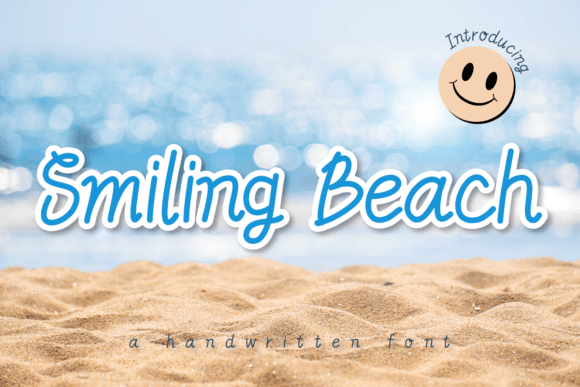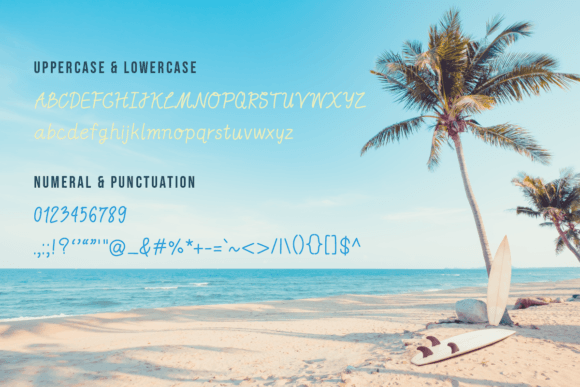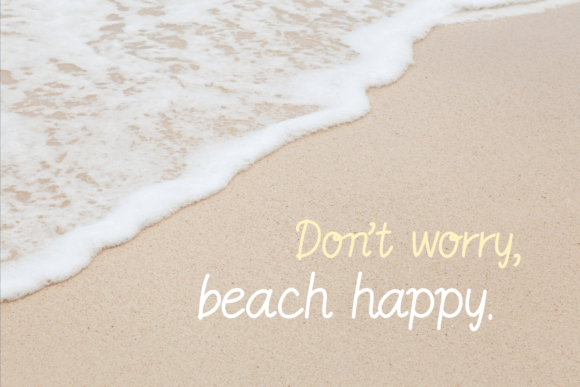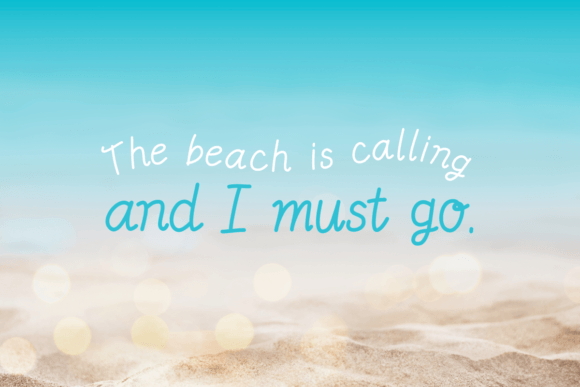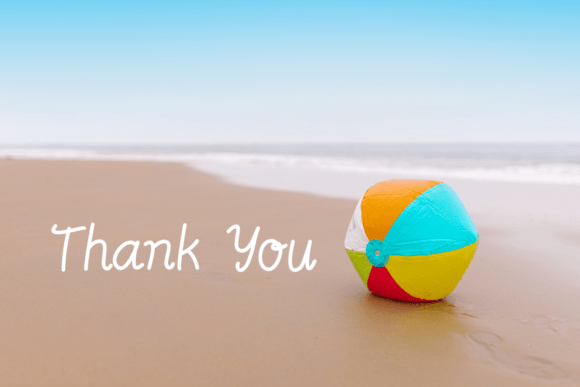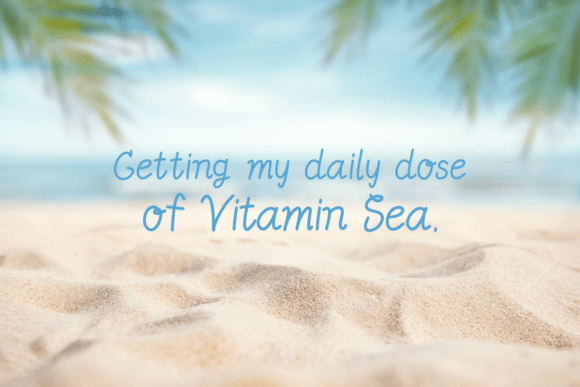
Smiling Beach Font
About Smiling Beach Font
“Smiling Beach” is a handwritten font that radiates positivity and character. This friendly and charming hand-lettered typeface is perfect for a variety of design applications, including quotes, headings, logos, branding, merchandise, and websites. It adds a touch of style and warmth to your creative projects.
The font’s handwritten style is characterized by its playful and personable characters. It exudes a sense of friendliness and approachability, making it a versatile choice for projects that require a welcoming and positive vibe. “Smiling Beach” can infuse your designs with a sense of charm and character, making them engaging and memorable.
In the world of design, fonts are instrumental in conveying mood, style, and visual identity. “Smiling Beach” excels in these aspects by offering a handwritten font that is both cheerful and visually captivating. Its aesthetics bring a sense of positivity and style to your designs, making them stand out and resonate with your audience.
In summary, “Smiling Beach” is more than just a font; it’s a friendly and character-filled design tool that can enhance your creative projects with its playful and positive style. Whether you’re working on branding, quotes, or any design that requires a welcoming and charming touch, “Smiling Beach” is the font that can help you craft designs that are full of character and radiate positivity.